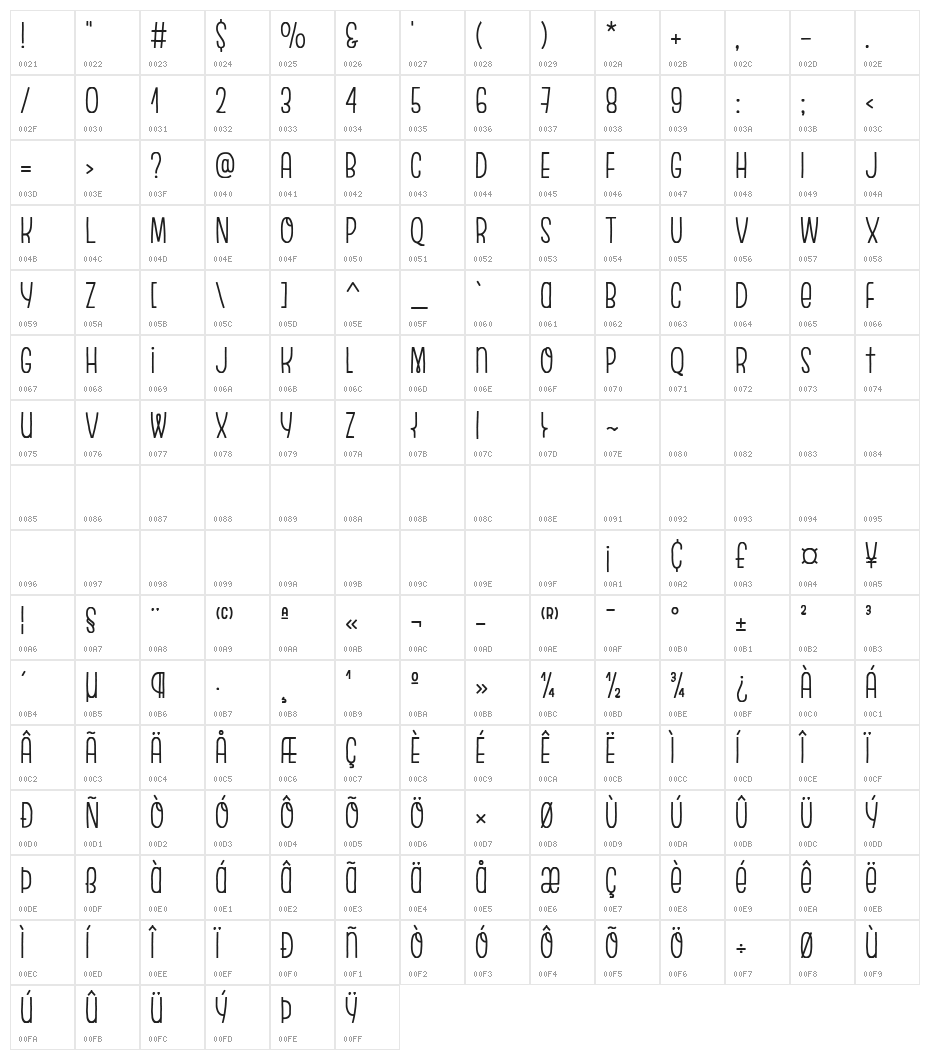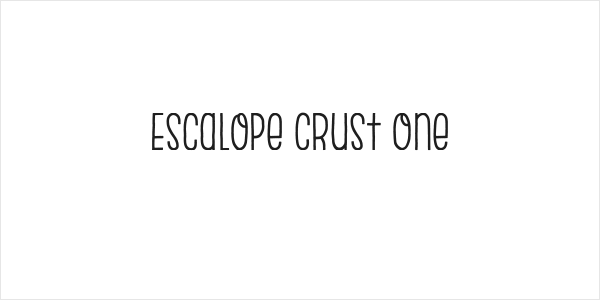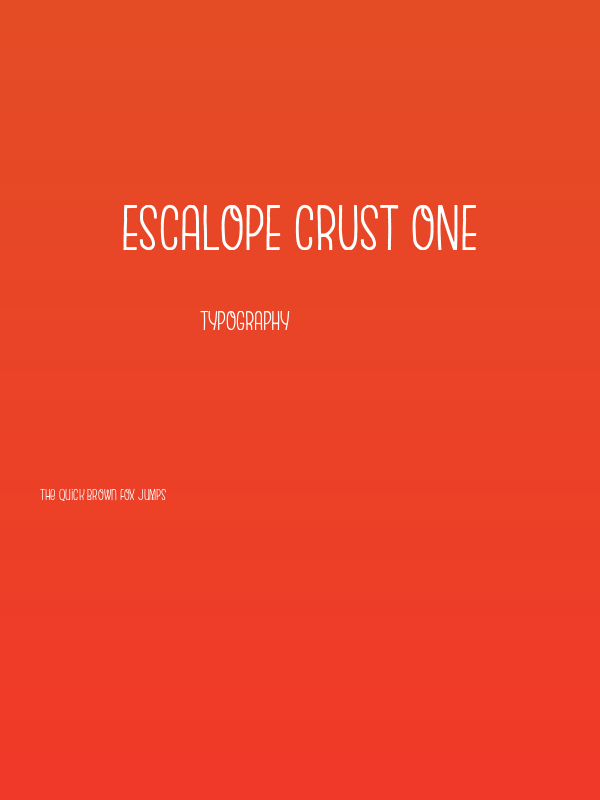
Escalope Crust One Font
Escalope Crust One Description
This font features a playful and slightly whimsical design with tall, narrow characters. The strokes are consistent in width, giving it a monoline appearance. The letters have a hand-drawn quality, with subtle irregularities that add charm and personality. The uppercase and lowercase letters maintain a uniform height, contributing to a clean and organized look. The numbers and special characters are designed to match the overall style, making them cohesive with the alphabet. This font is versatile, suitable for projects that require a friendly and approachable aesthetic.
Overall StylePlayful
Use CaseHeadlines, Logos, Invitations
Proposed ProjectsIdeal for children's books, greeting cards, playful branding, and casual invitations.